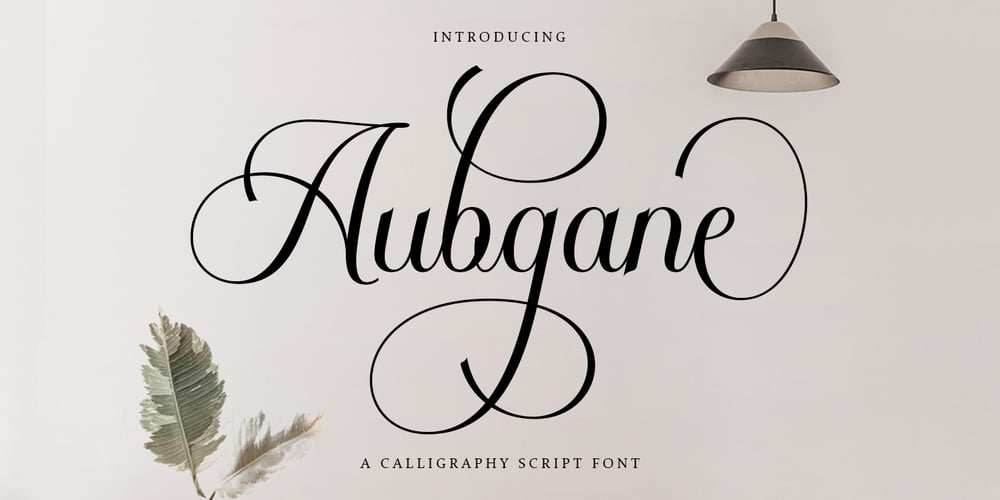
Aubgane Font Family was designed by Haikal Juanda and published by Pista Mova. Aubgane contains 1 styles and family package options. Aubgane is a classy display script inspired by the romantic era. It’s unique and pairs perfectly with most of our typography. A sweet compliment to a serif or sans serif, whether bold or more subtle.It also supports multilingual.Multilingual SupportFuture updates for free—Our typography works best in design software. Please note that while our fonts work well in Canva, Canva itself does not support advanced open type features such as special characters.For support please email me at pistamova02@gmail.com.